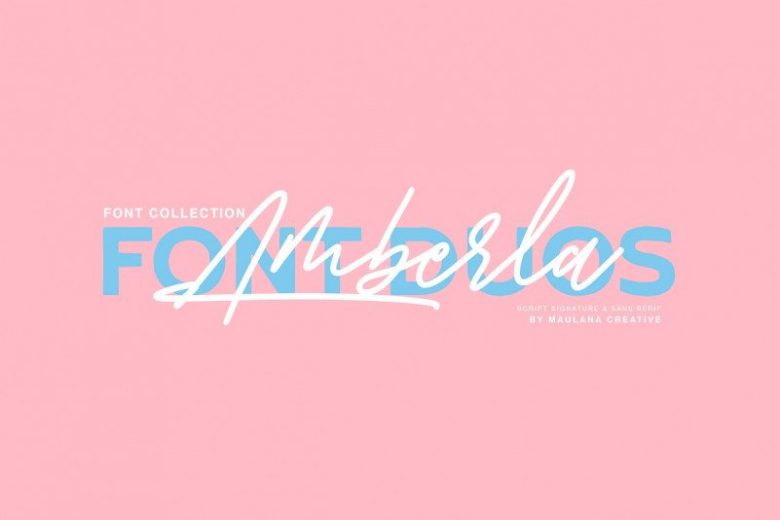
Amberla Signature Font
Hello friend. This is a elegant font duo with sans and script font by Maulana Creative. Amberla Font Duo is a a highly contrasting type couple made up of an all-natural hand written sans and an elegant signature script. Give your designs an authentic brush handcrafted feel. It is perfectly suited to signature, stationery, logo, typography quotes, magazine or book cover, website header, flyer, clothing, branding, packaging design and more.